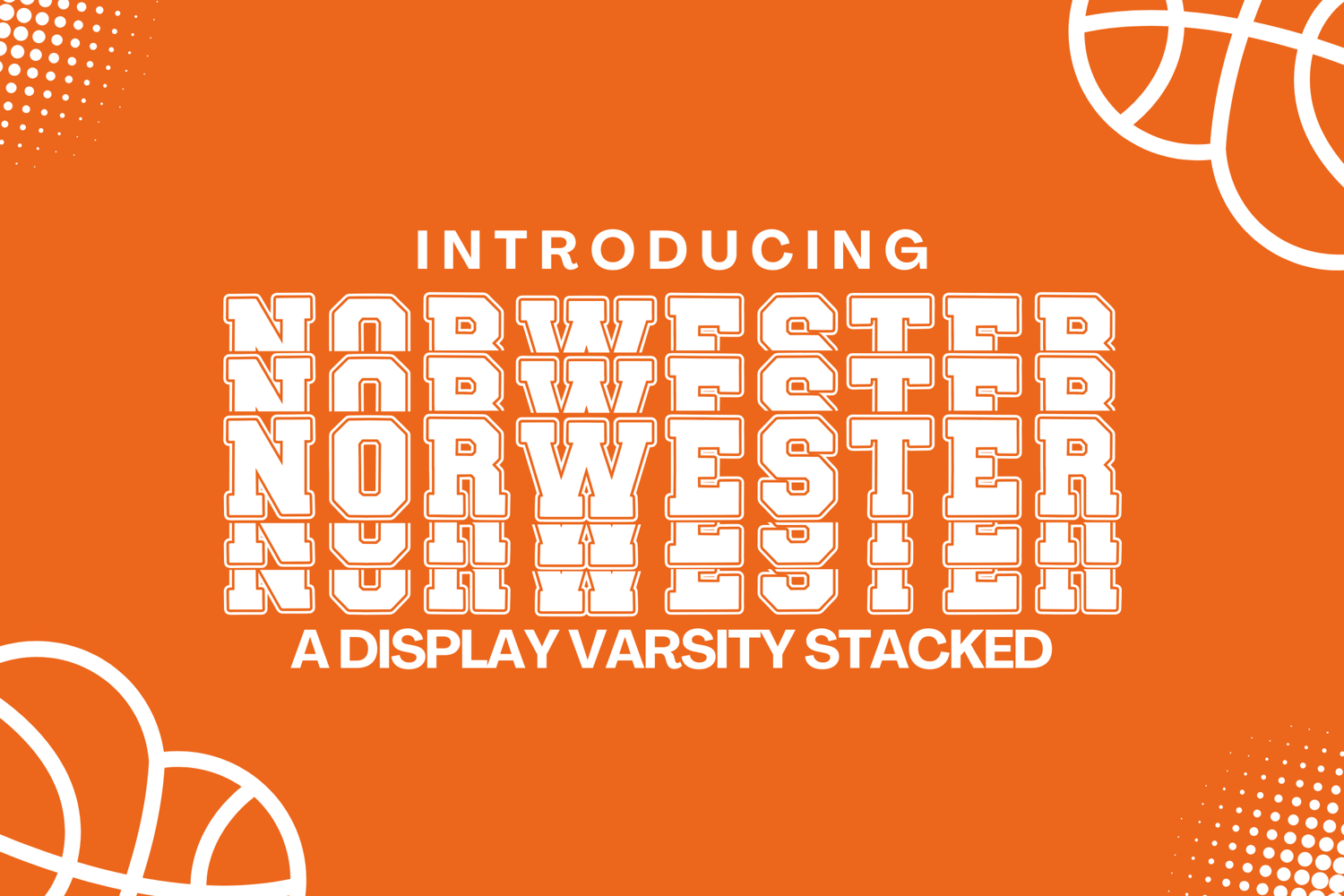
Norwester Stacked Varsity - Bold Athletic Block Font
Norwester Varisty Stacked
Bring the energy of varsity sports and stacked typography into your designs with Norwester Stacked Varsity. This bold all-caps condensed font combines the clean strength of Norwester with a stacked varsity styling — making it perfect for sports jerseys, college posters, team logos, and championship branding.
Its strong block letters and condensed proportions ensure readability and power, whether you’re working on apparel, signage, or bold editorial headlines.
✨ Features:
• All-Caps Varsity Typeface with stacked block styling
• Condensed design for strong, impactful layouts
• Ideal for layered designs, monograms & varsity logos
🎯 Perfect For:
• Team jerseys & sports branding
• College & varsity posters
• Championship banners & signage
• Stacked monogram designs
• Apparel, stickers & merchandise